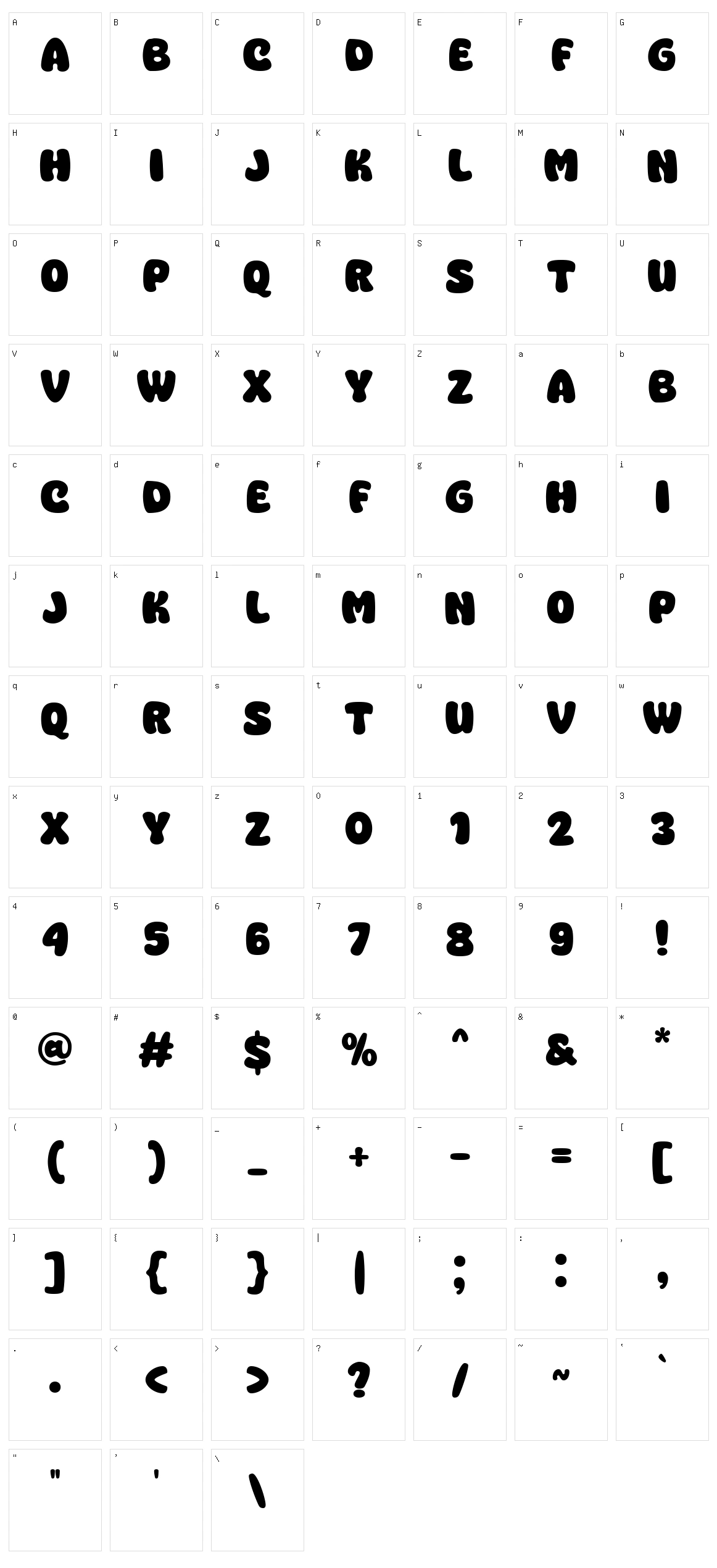
The free font Super Plants is carefully designed by fsuarez913, showcasing a thoughtful balance of creativity and usability and falls under the Cartoon font style. When you download the ZIP file, it contains only 34.27 KB of font files, making it lightweight and quick to download. Please review the license details below to understand permitted usage and distribution rights. If license information is not available, we recommend using this font for personal projects only or contacting the author directly for commercial usage permissions.